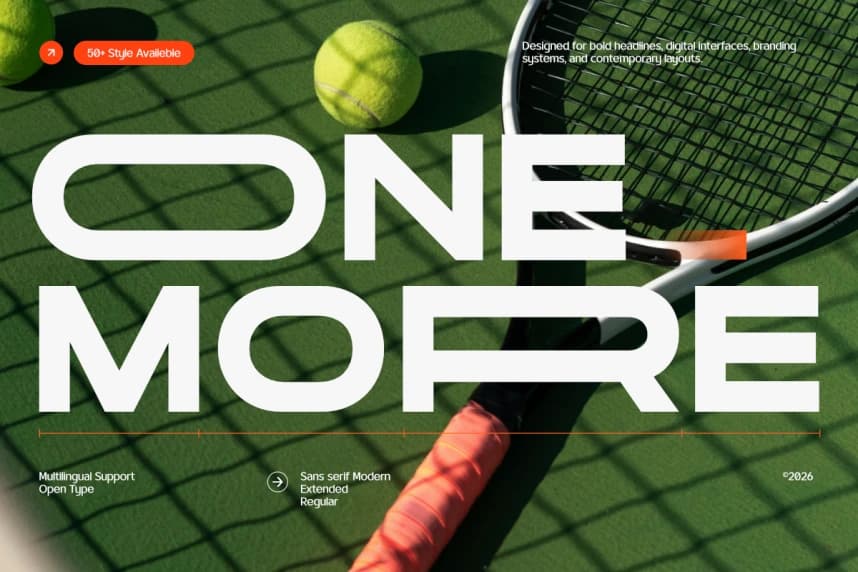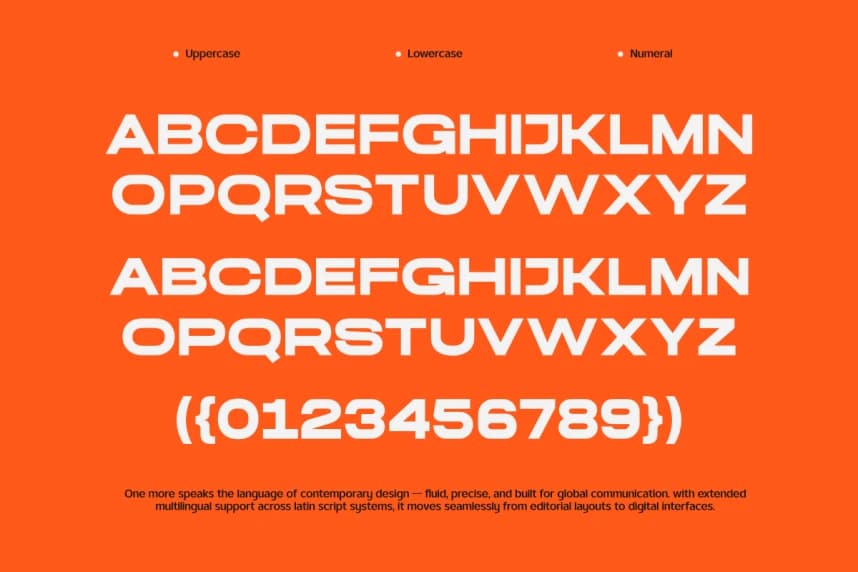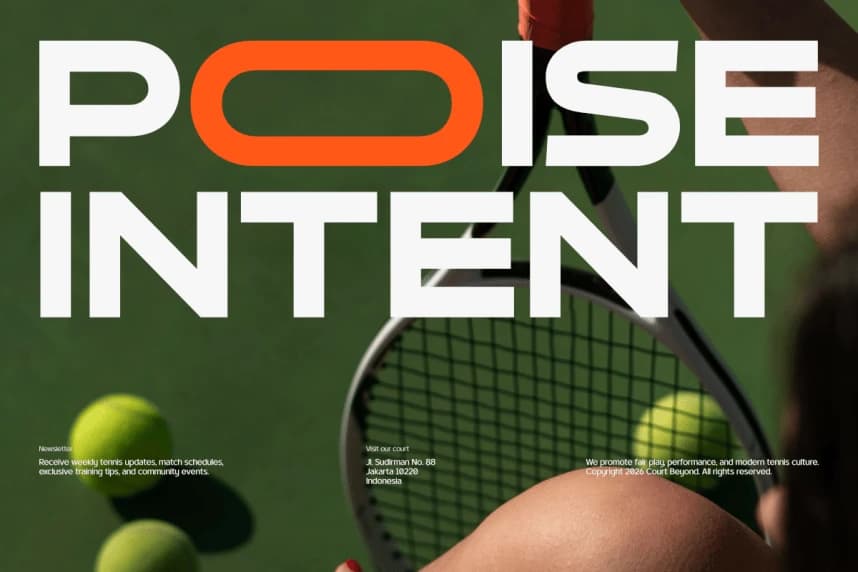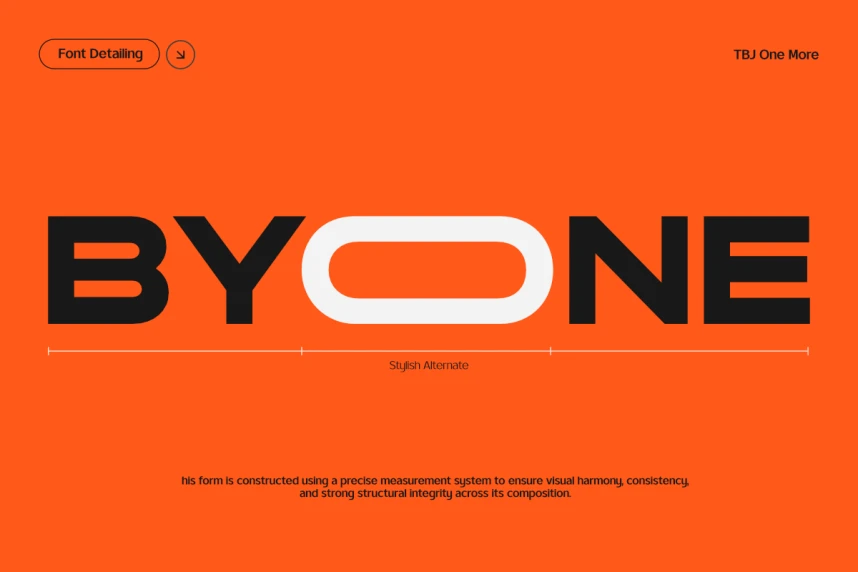
One More Font
One More Font is a modern sans serif typeface designed for clarity, precision, and contemporary visual communication. Built with a clean geometric structure and smooth proportions, One More delivers a confident and versatile tone across both digital and print environments.